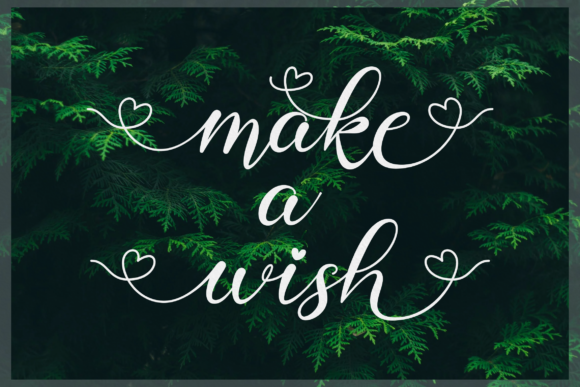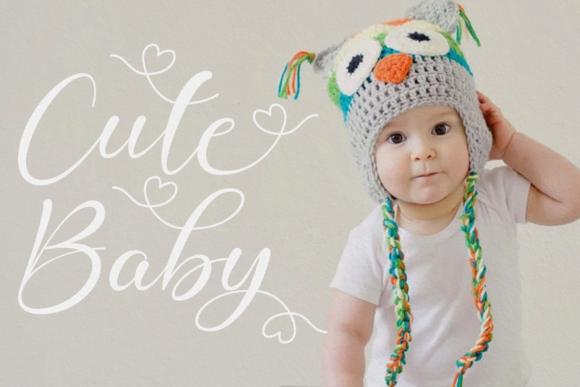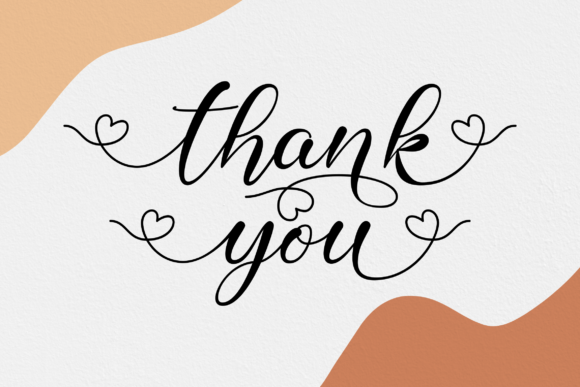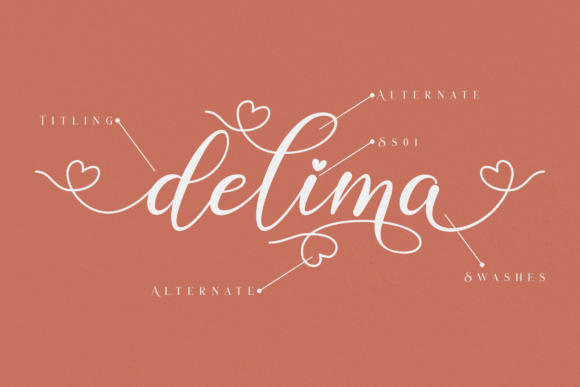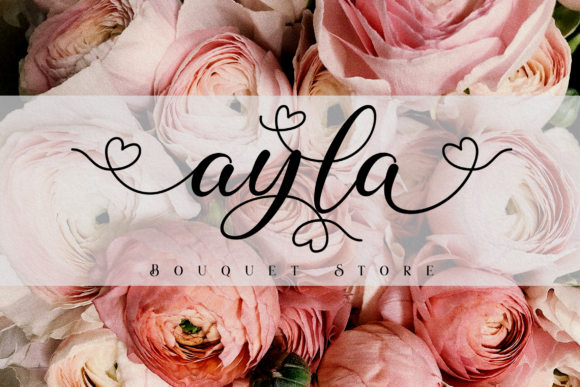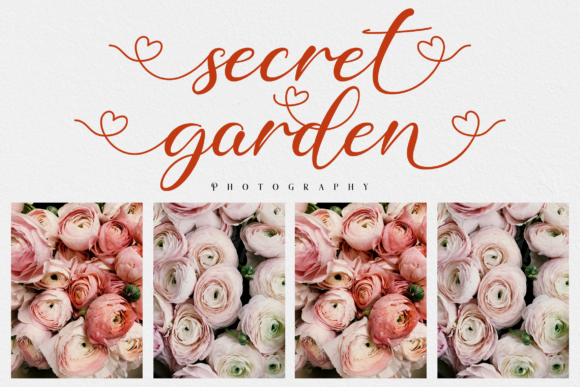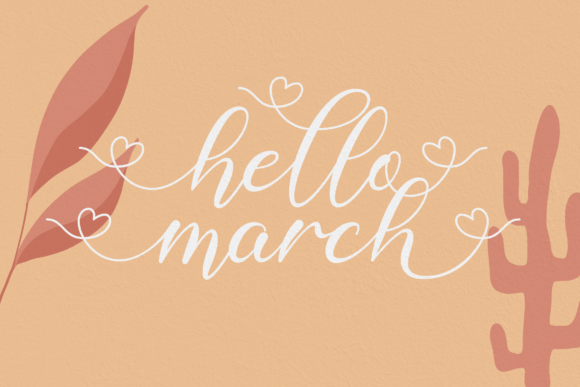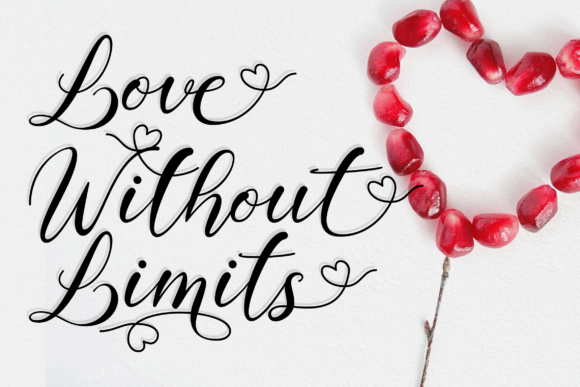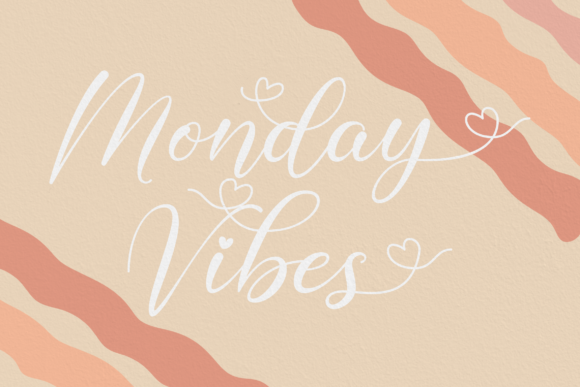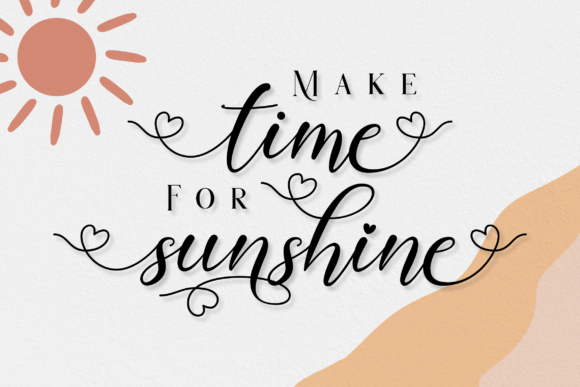
Delima Font
About Delima Font
Delima is a magical script font carefully created with a touch of elegance. This is a beautiful combination of timeless elegance and authentic calligraphy. It features an incredibly classic style, while still keeping a friendly feel. Delima is the perfect font for making original and outstanding designs.